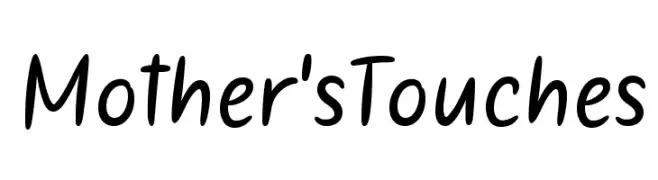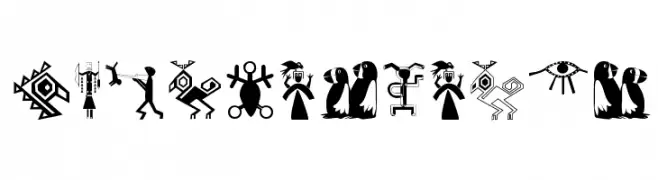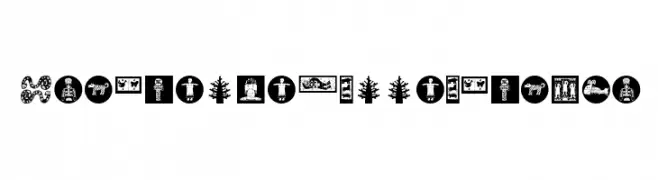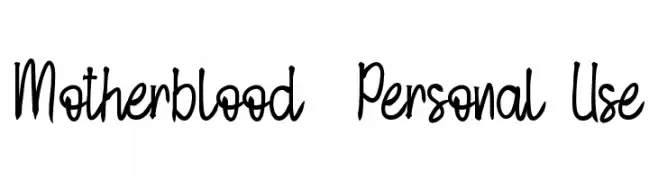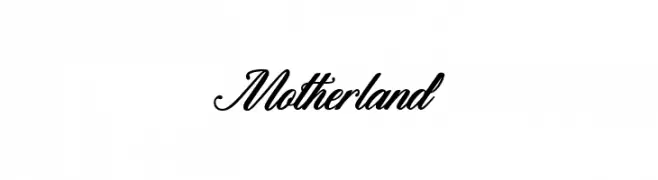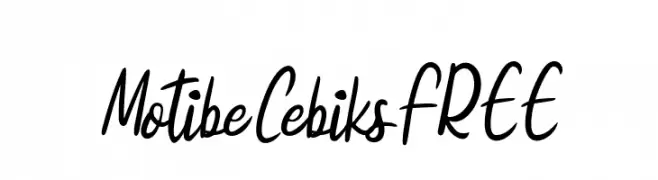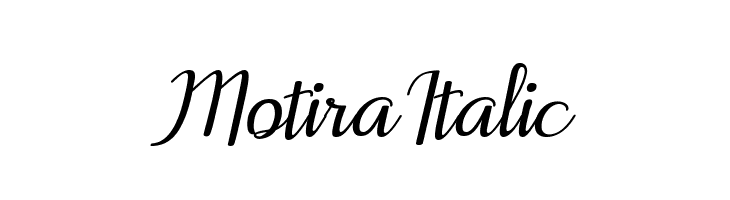
A playful, hand-drawn font with a whimsical and casual style.
A graceful and elegant script font with flowing, cursive letters.
Distressed, jagged, hand-drawn display font with chaotic energy.
A casual, handwritten font with smooth, rounded strokes.
A pictographic font inspired by African art, featuring bold and expressive symbols.
Decorative symbol font featuring African archetypal imagery.
A bold serif font with high contrast and elegant serifs, perfect for impactful headlines.
A playful, handwritten font with smooth, fluid strokes and a dynamic appearance.
A bold, hand-drawn 3D font with playful sketch-like shading.
A sophisticated script font with elegant loops and flourishes.